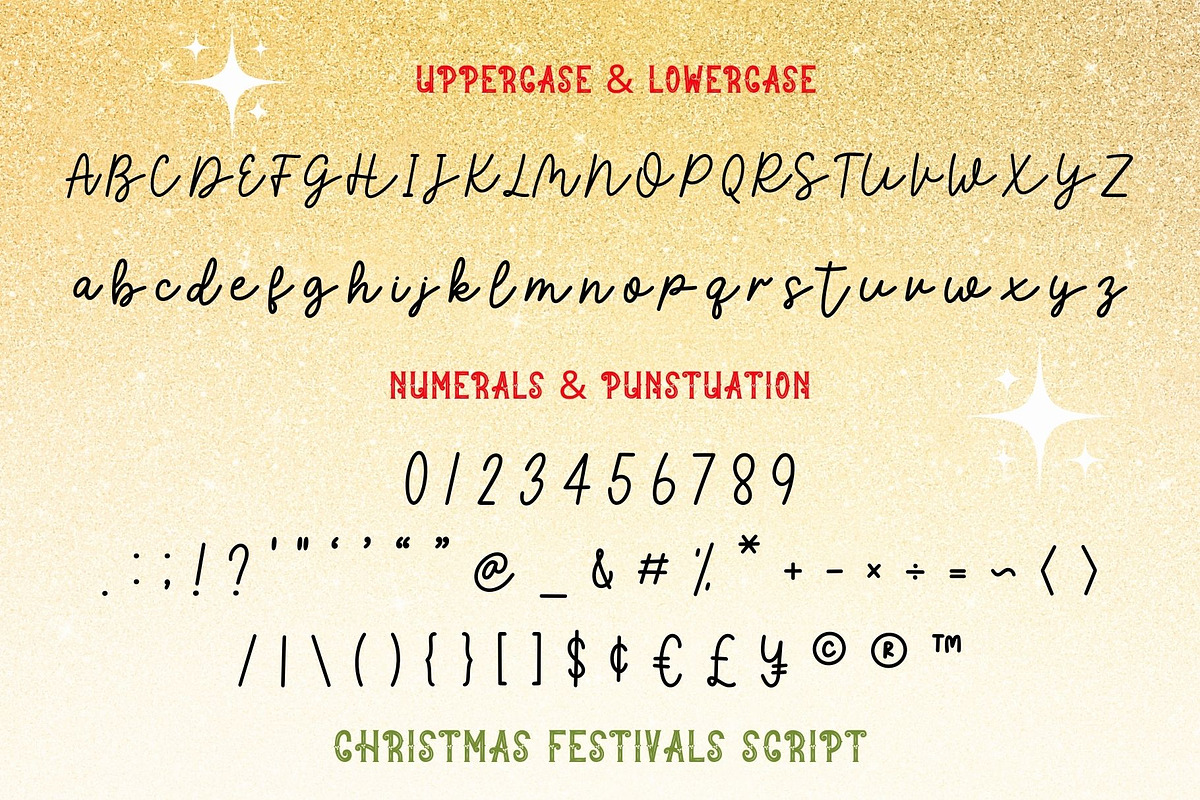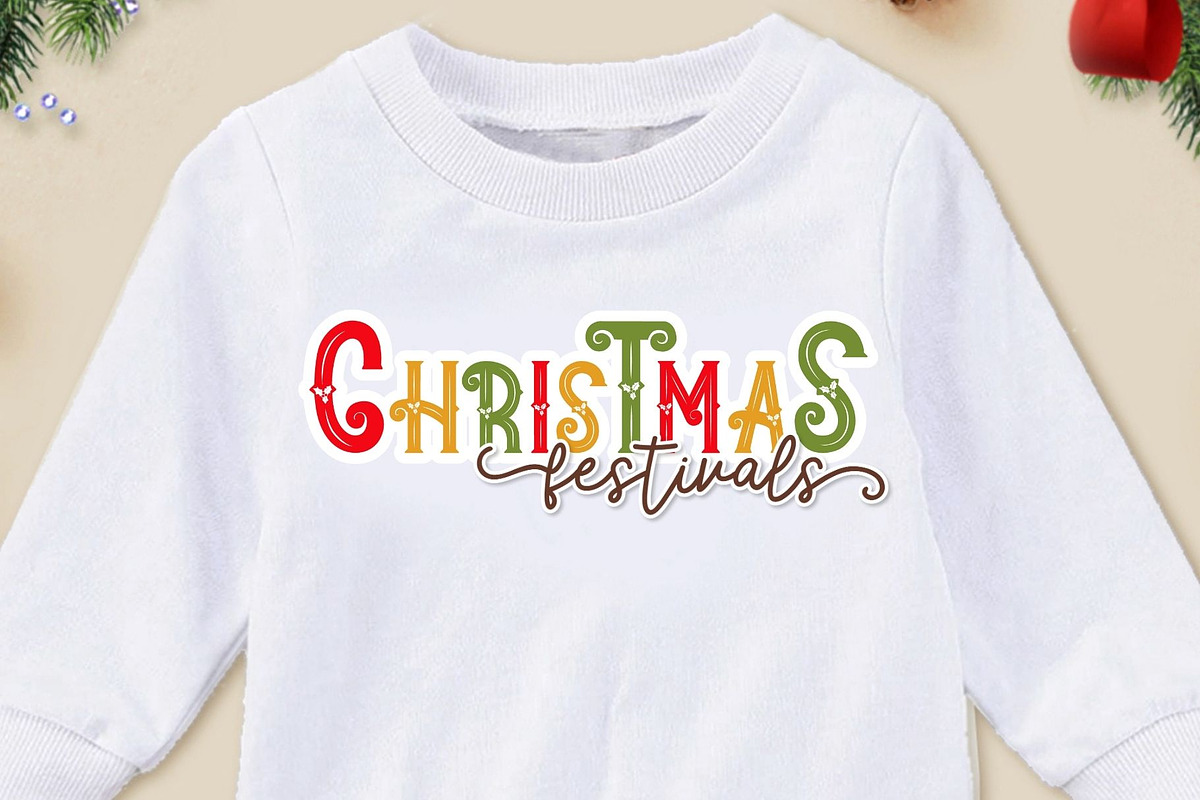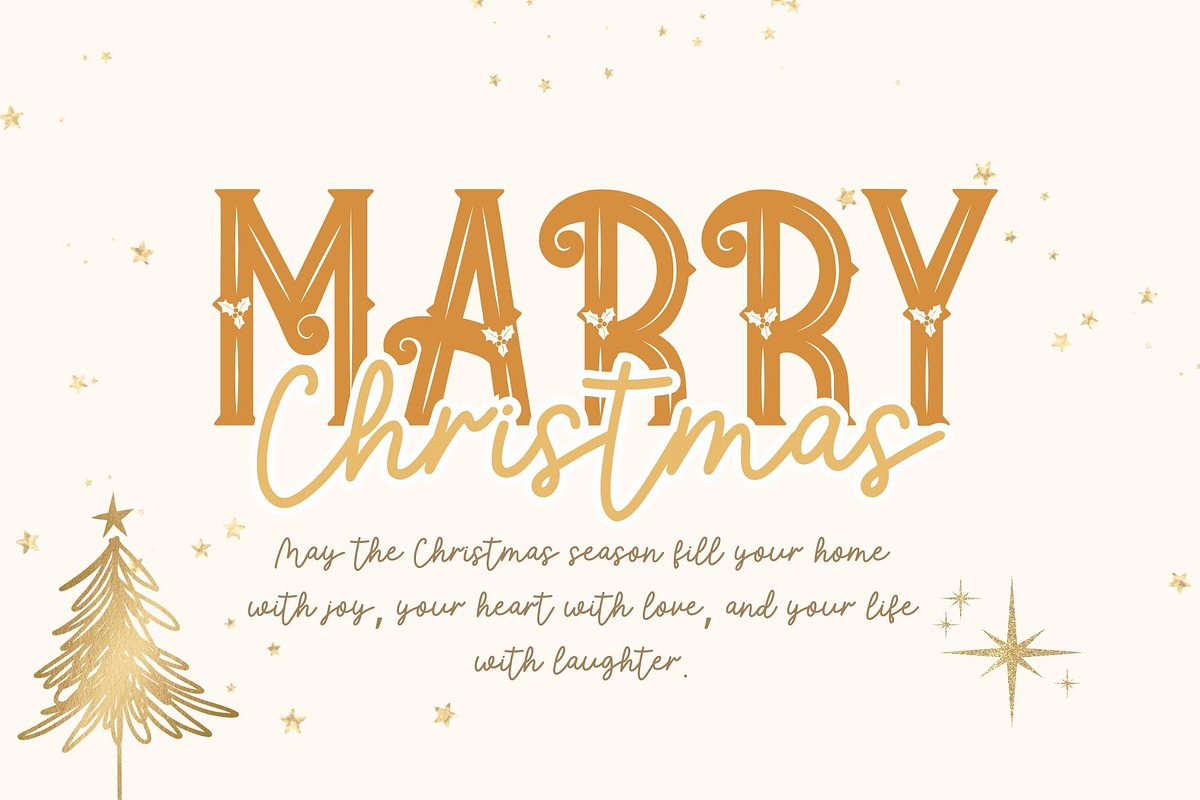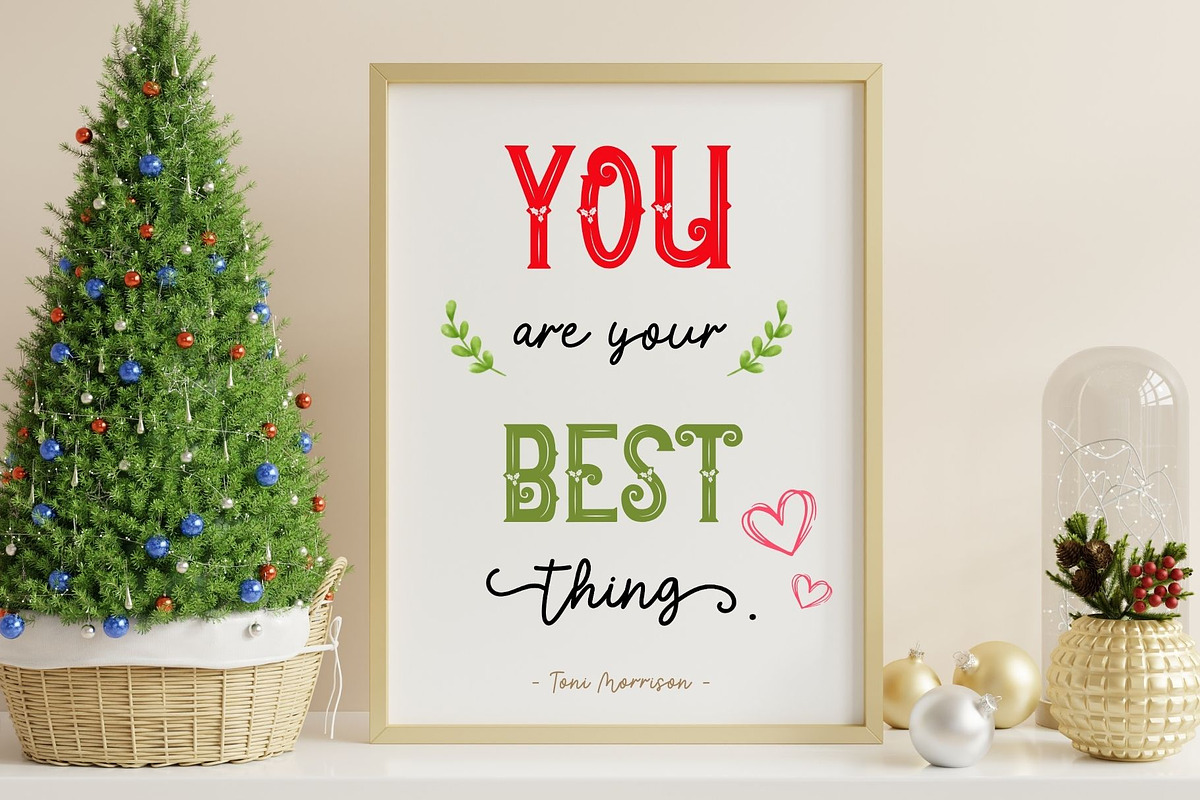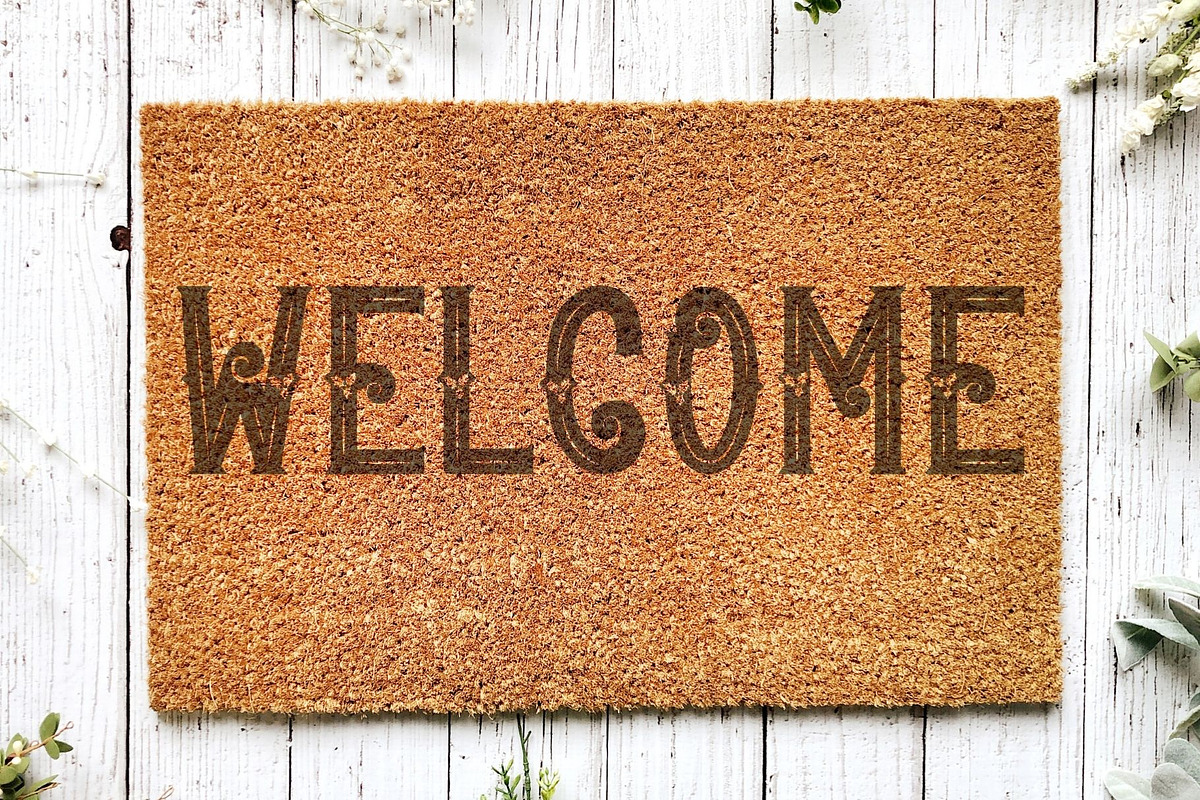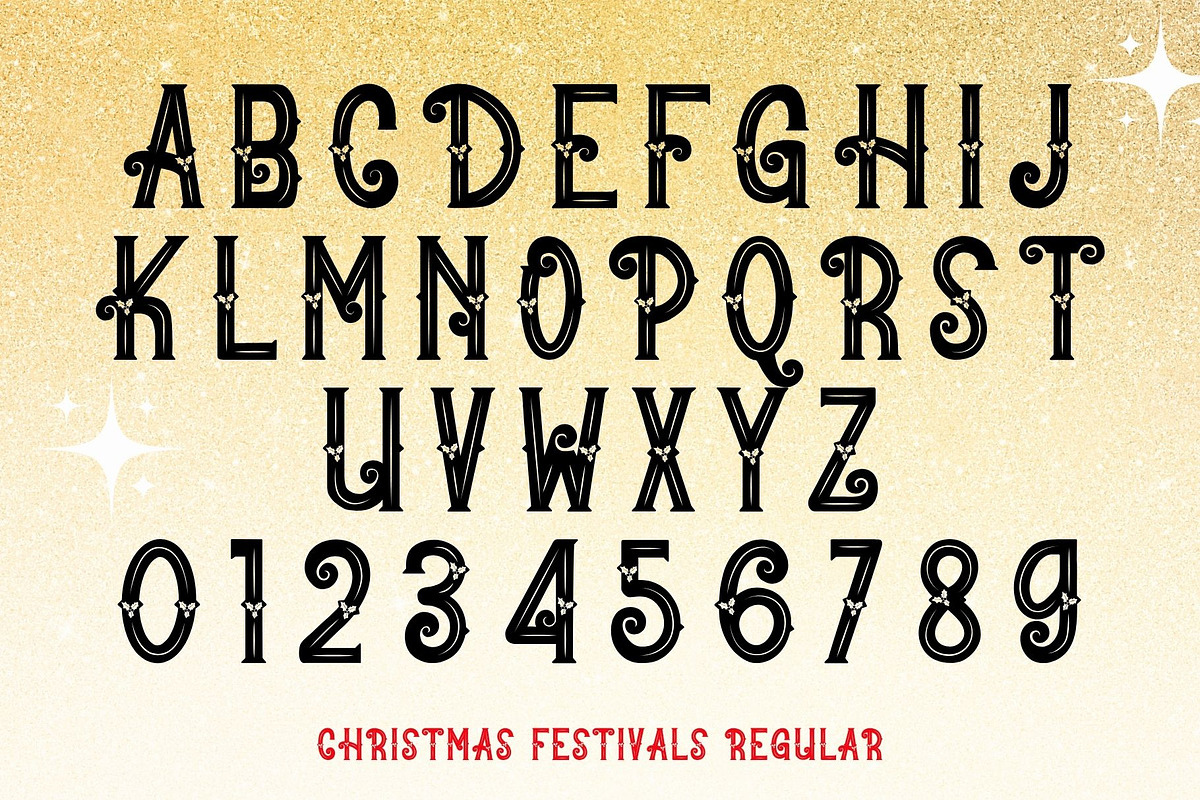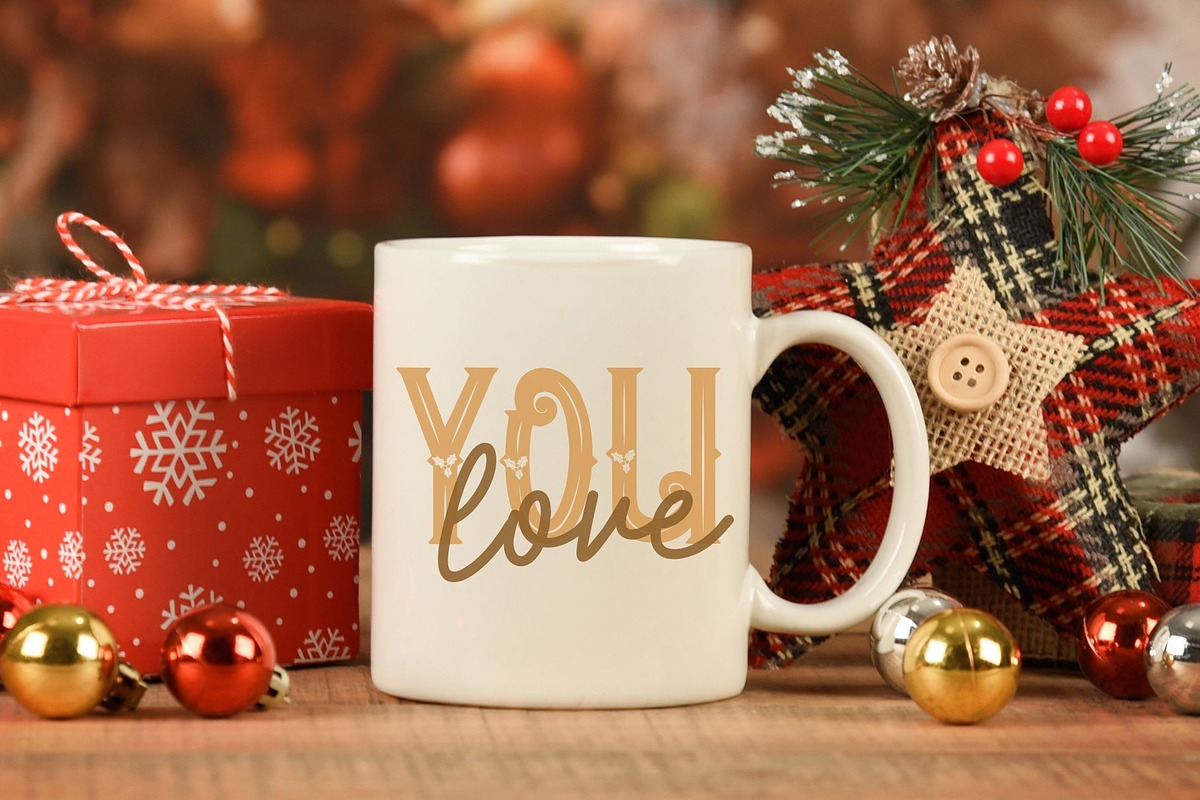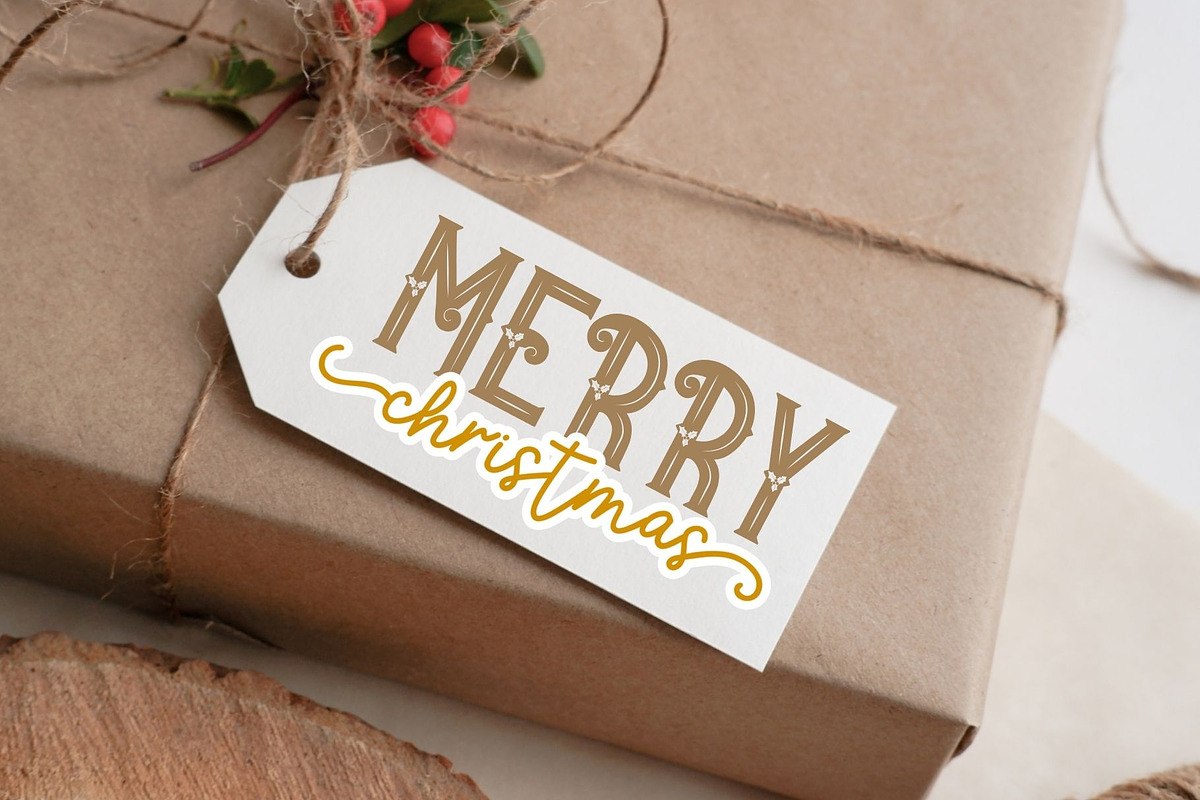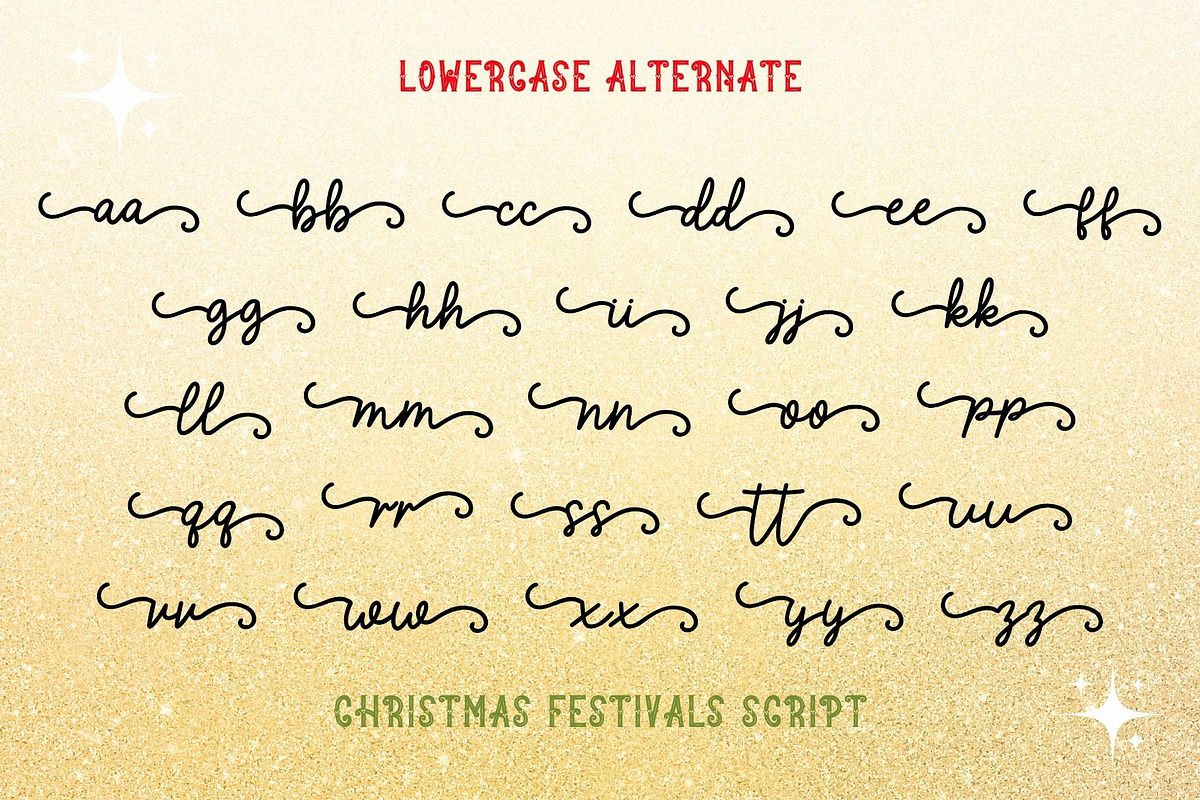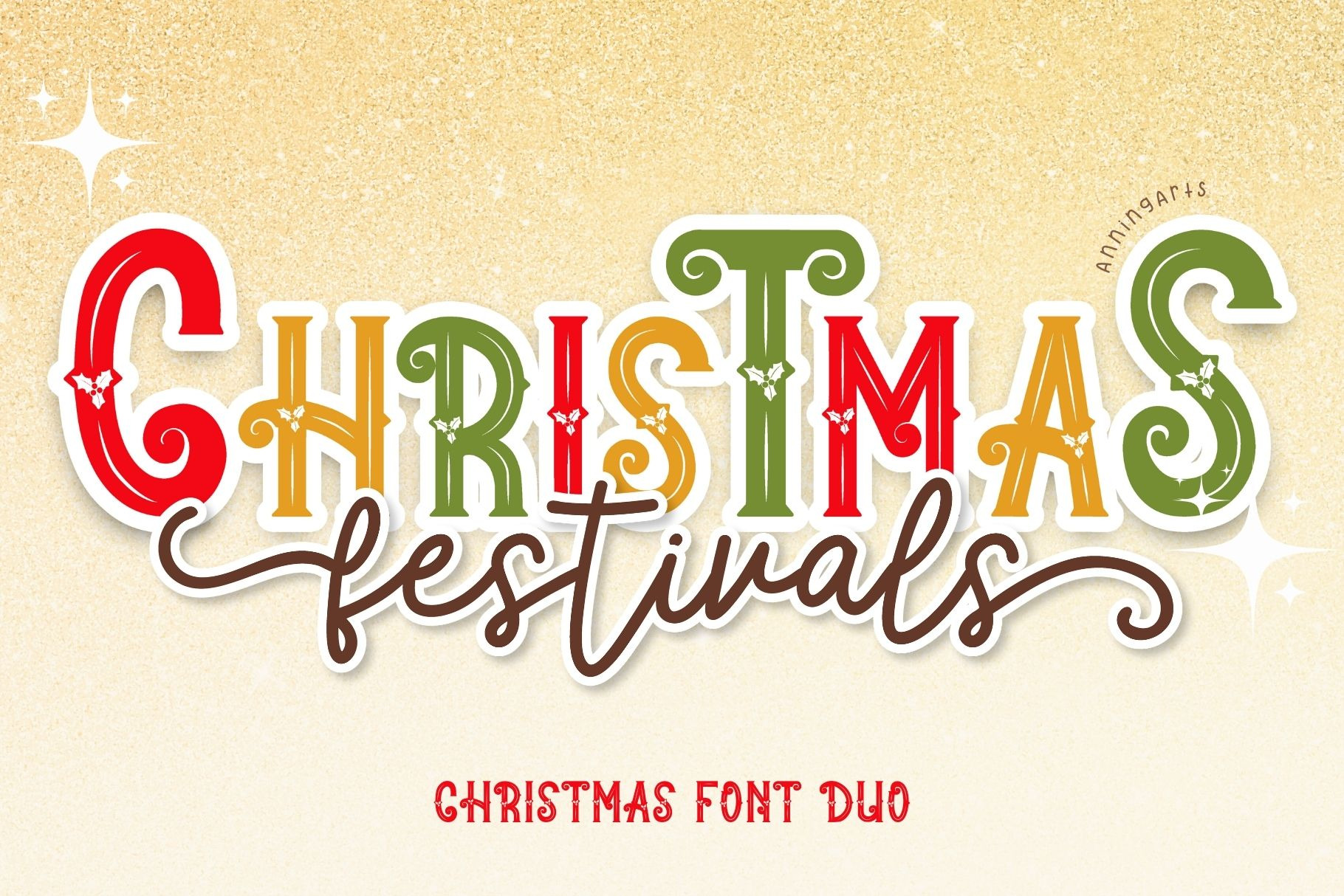
Christmas Festivals - Font Duo
"Christmas Festival Font Duo" includes two distinct fonts that work harmoniously together to produce an eye-catching design. The Decorative font is bold and easy to read, while the Script font is delicate, featuring flowing letters with curled tails. When combined, these two fonts create a beautiful and unique design.